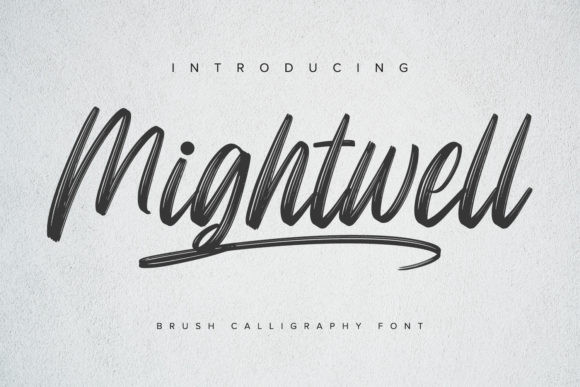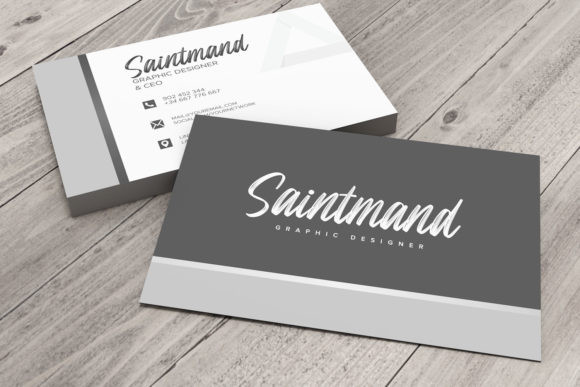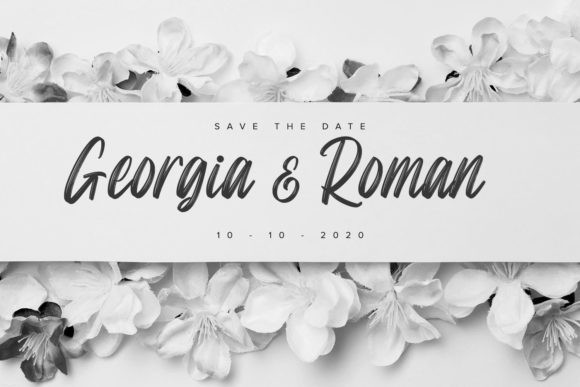
Mightwell Font
Mightwell is a casual, fun handwritten font, created by using a brush pen. Clean and a little bit quirky, this font is the perfect fit for all of your logos, branding, social media, and crafty DIY projects.